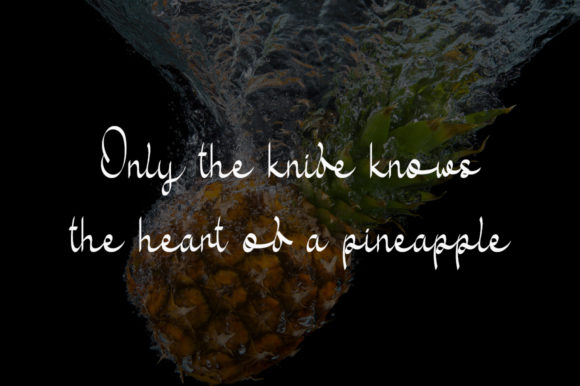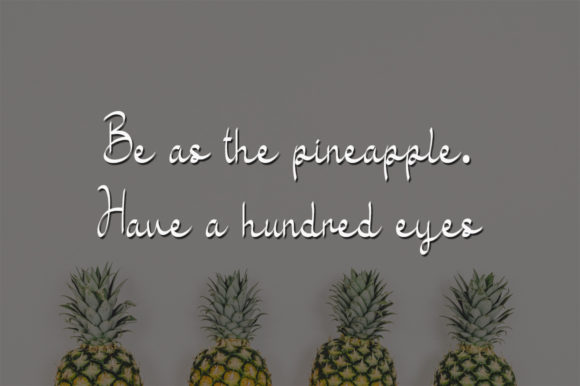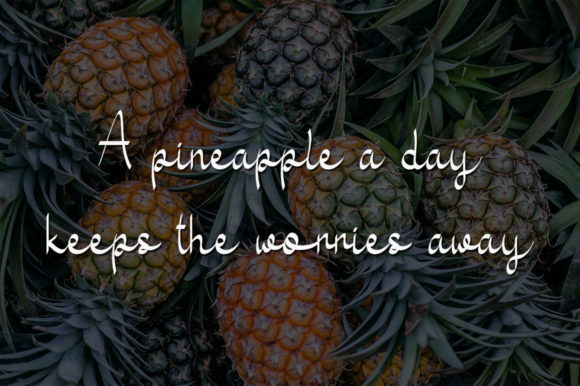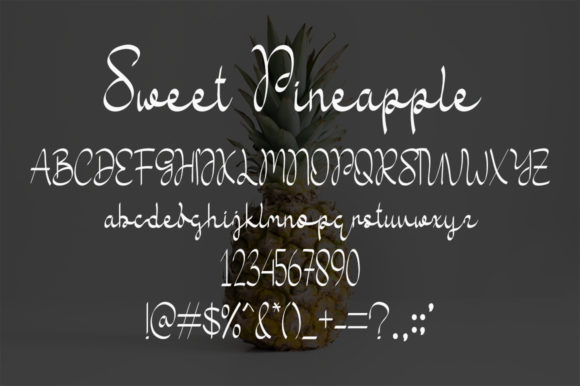
Sweet Pineapple Font
About Sweet Pineapple Font
Sweet Pineapple is a sweet and delicate handwritten font. Dainty and joyful, this font will be ideal for writing wedding invitations, cards or any other design that may need a romantic, personalized touch!